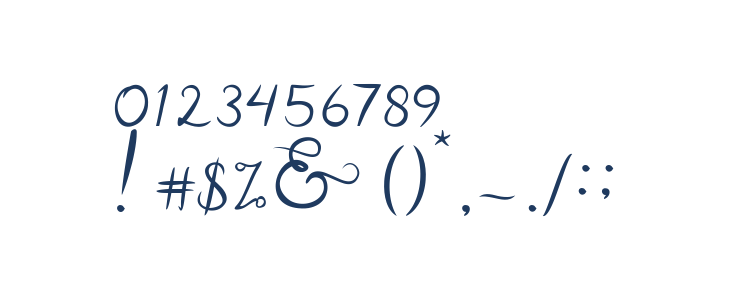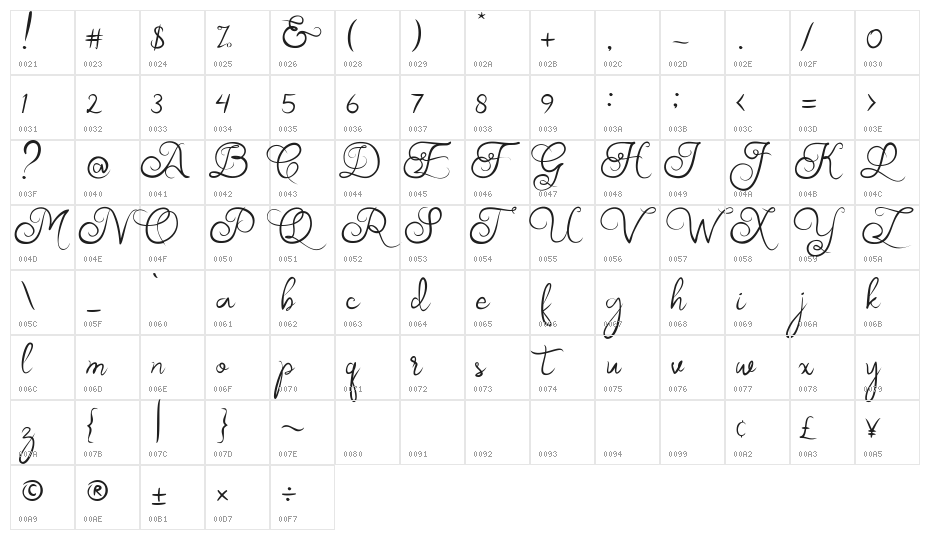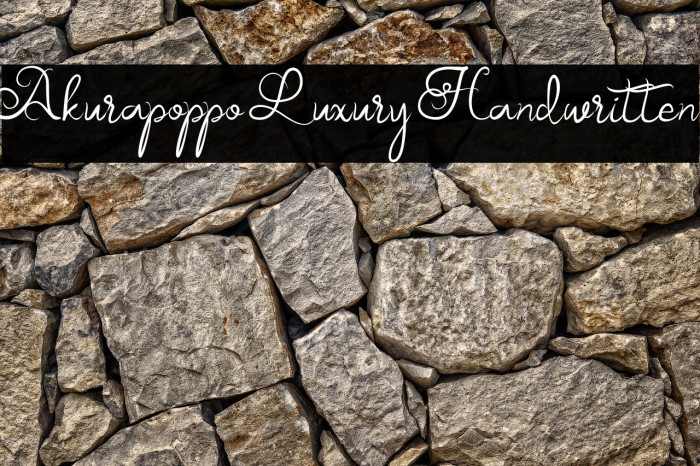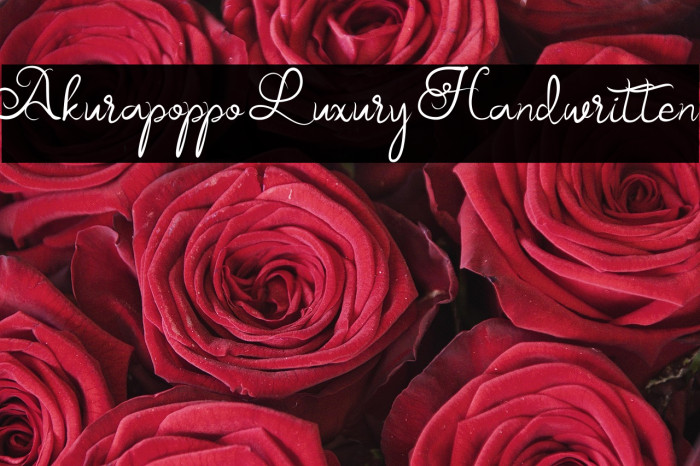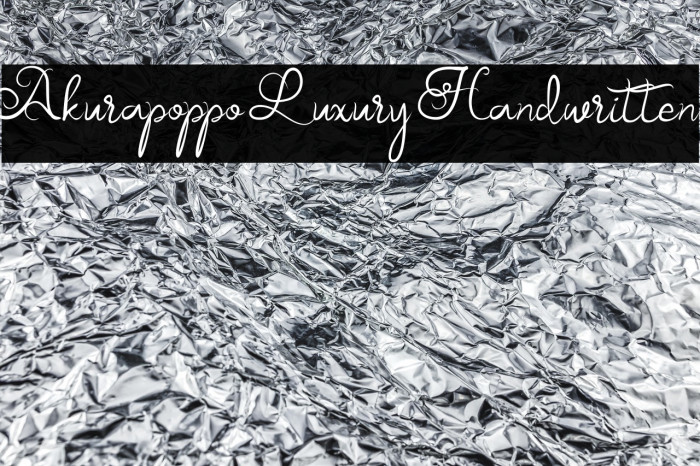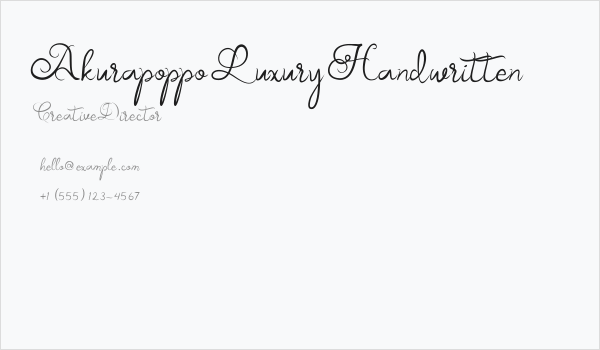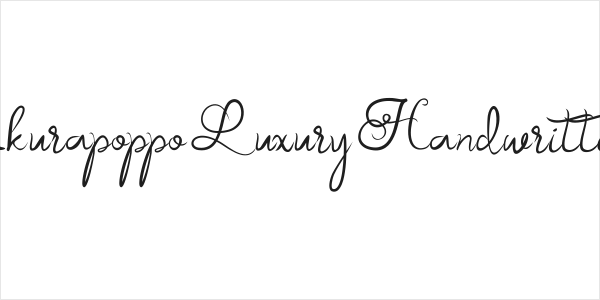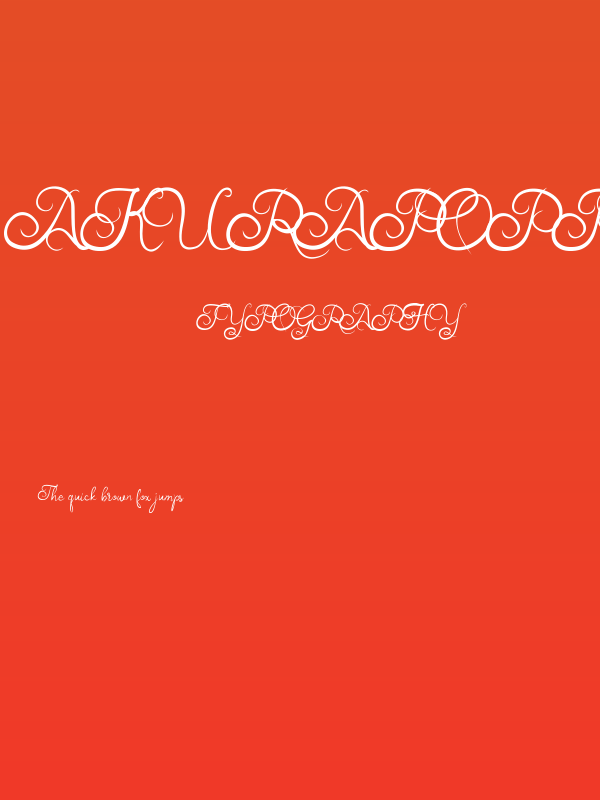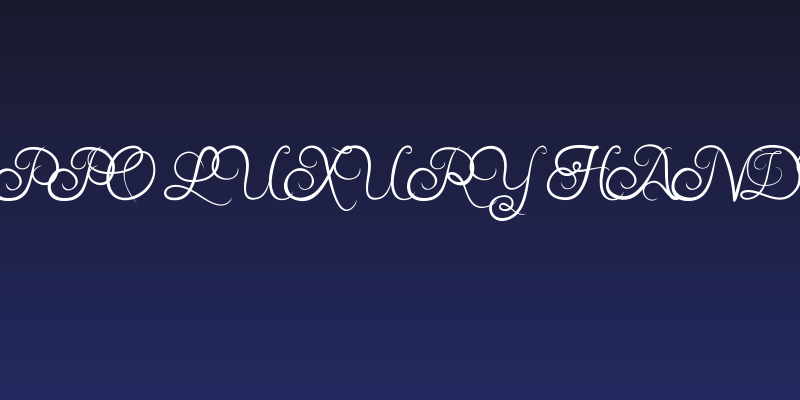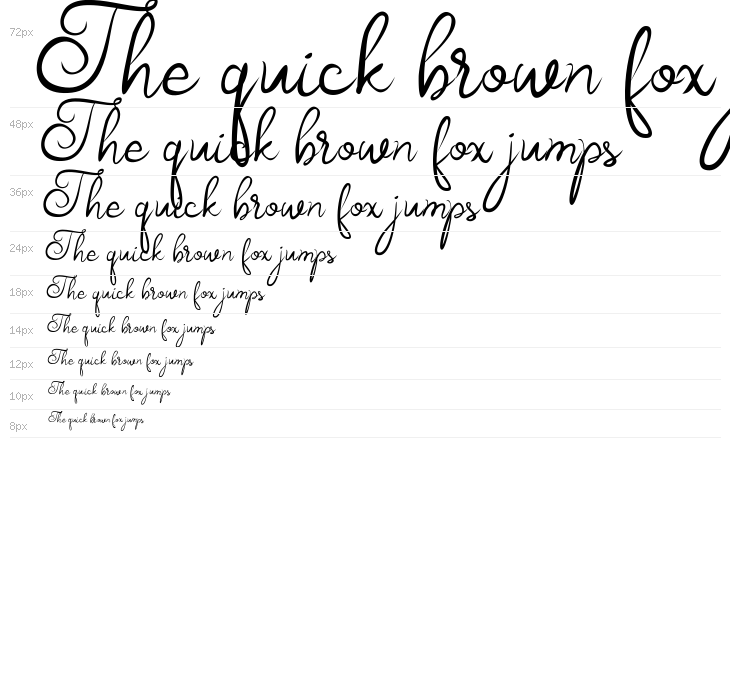
Akurapoppo Luxury Handwritten Font
Akurapoppo Luxury Handwritten Description
This font exudes elegance and sophistication with its luxurious handwritten style. The characters are intricately designed with flowing, cursive strokes that create a sense of movement and grace. The uppercase letters feature elaborate loops and swirls, while the lowercase letters maintain a more subtle yet equally stylish appearance. The numerals and special characters are crafted with the same attention to detail, ensuring a cohesive look throughout. This font is perfect for projects that require a touch of class and refinement, such as wedding invitations, high-end branding, or elegant packaging.
| Proposed Projects | Ideal for wedding invitations, luxury branding, and elegant packaging designs. |